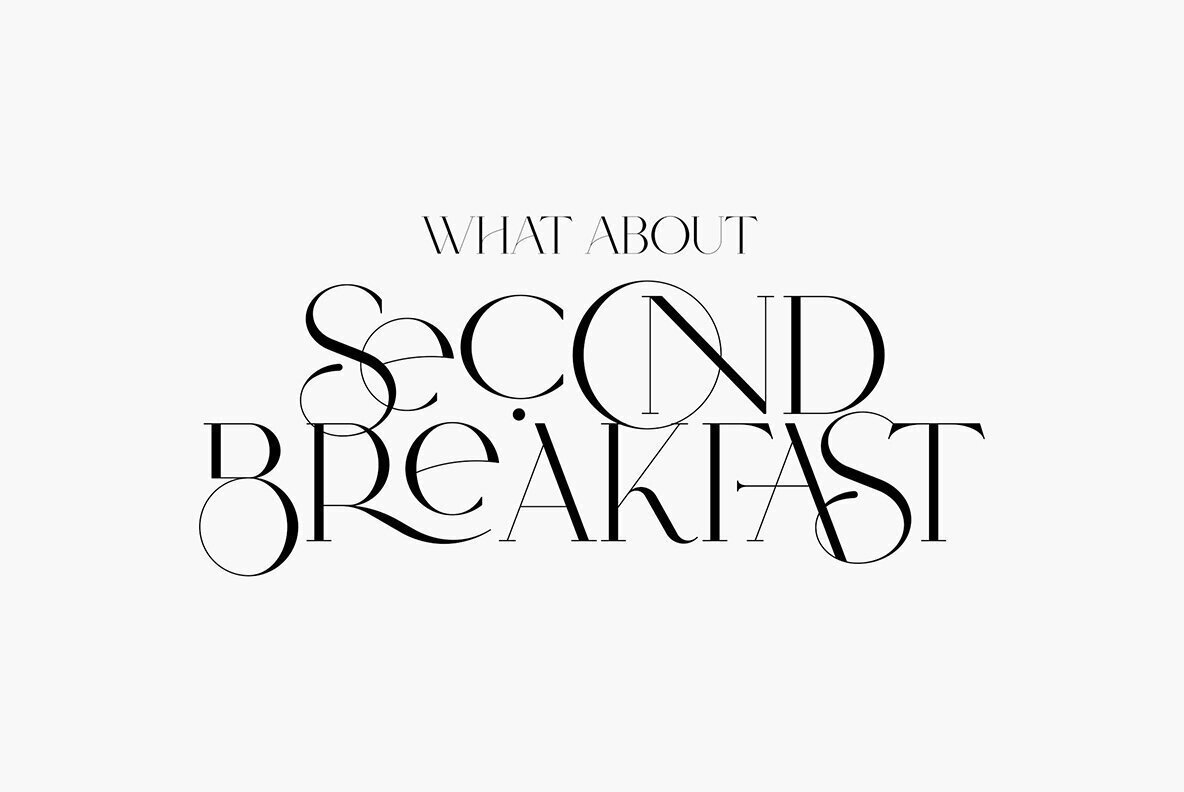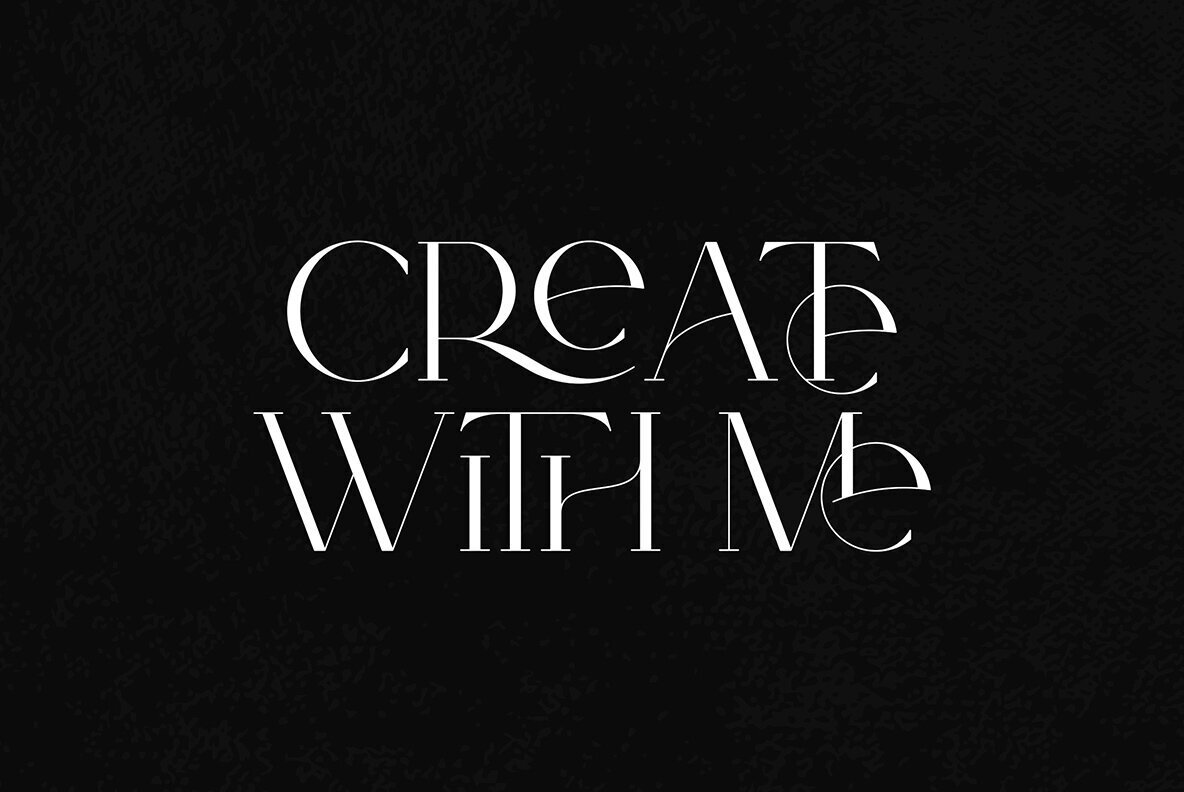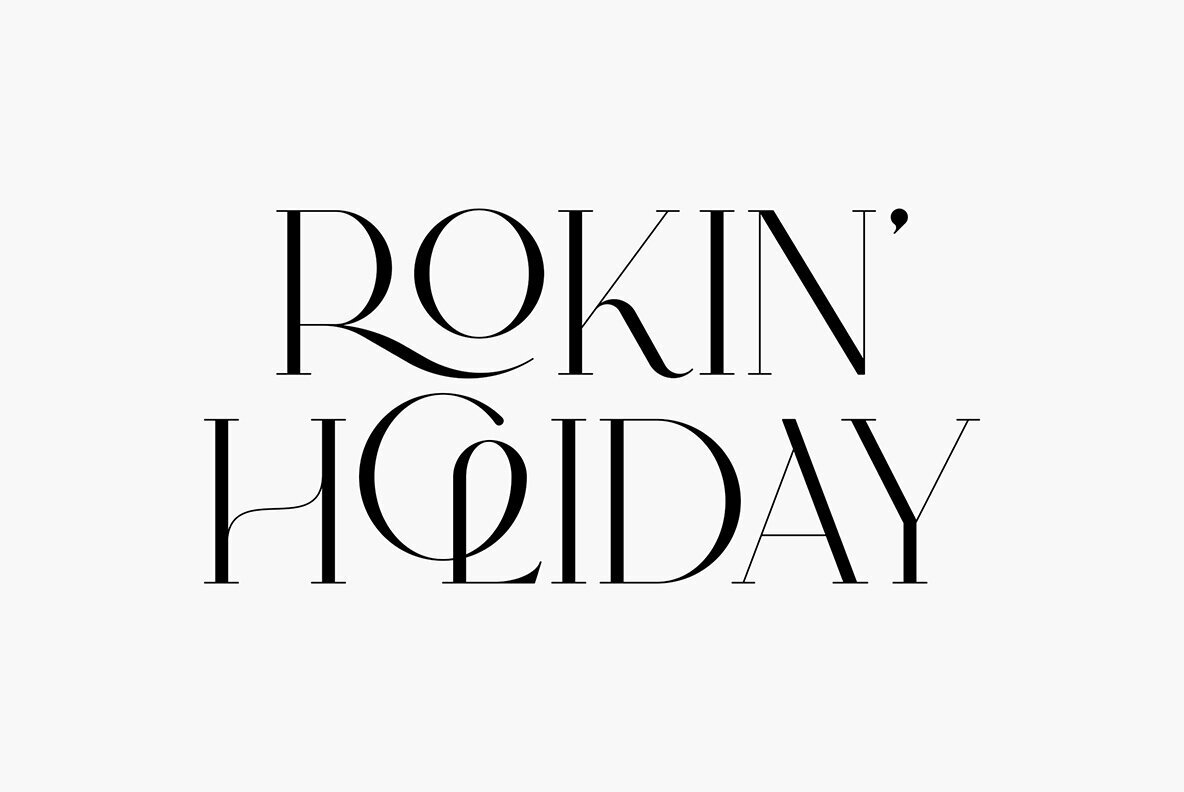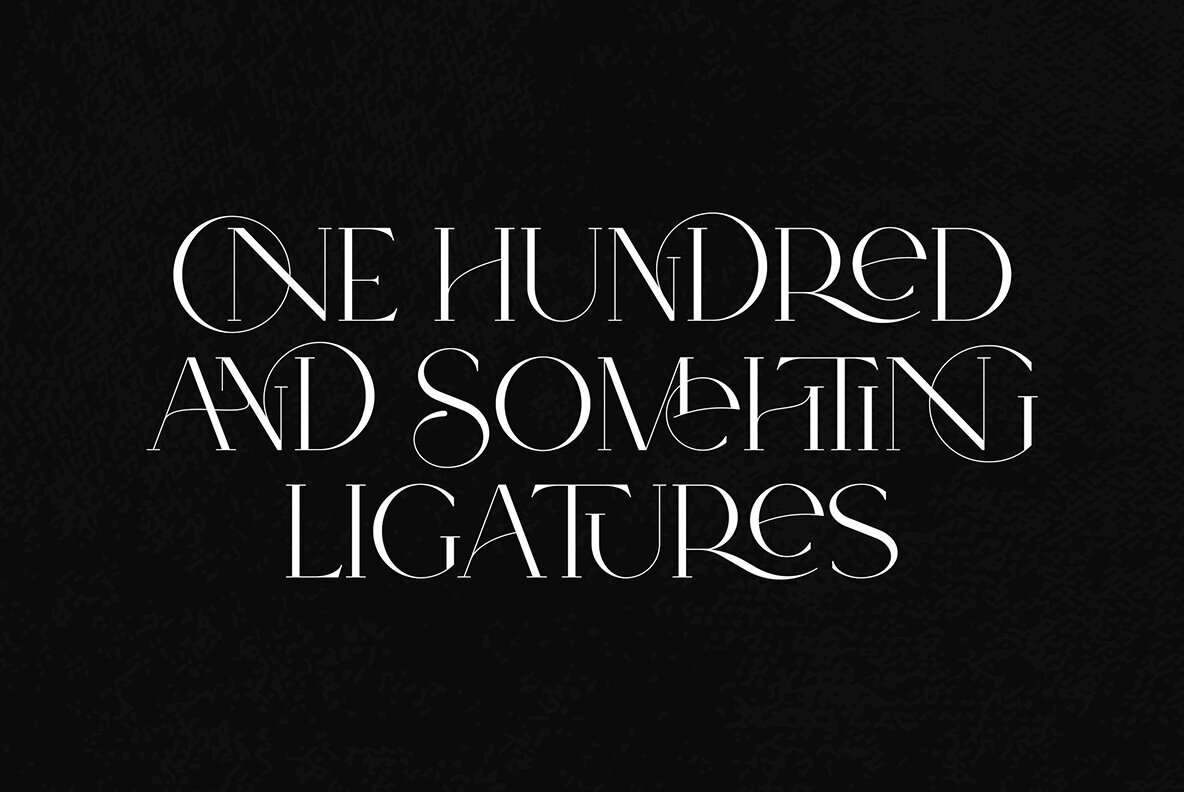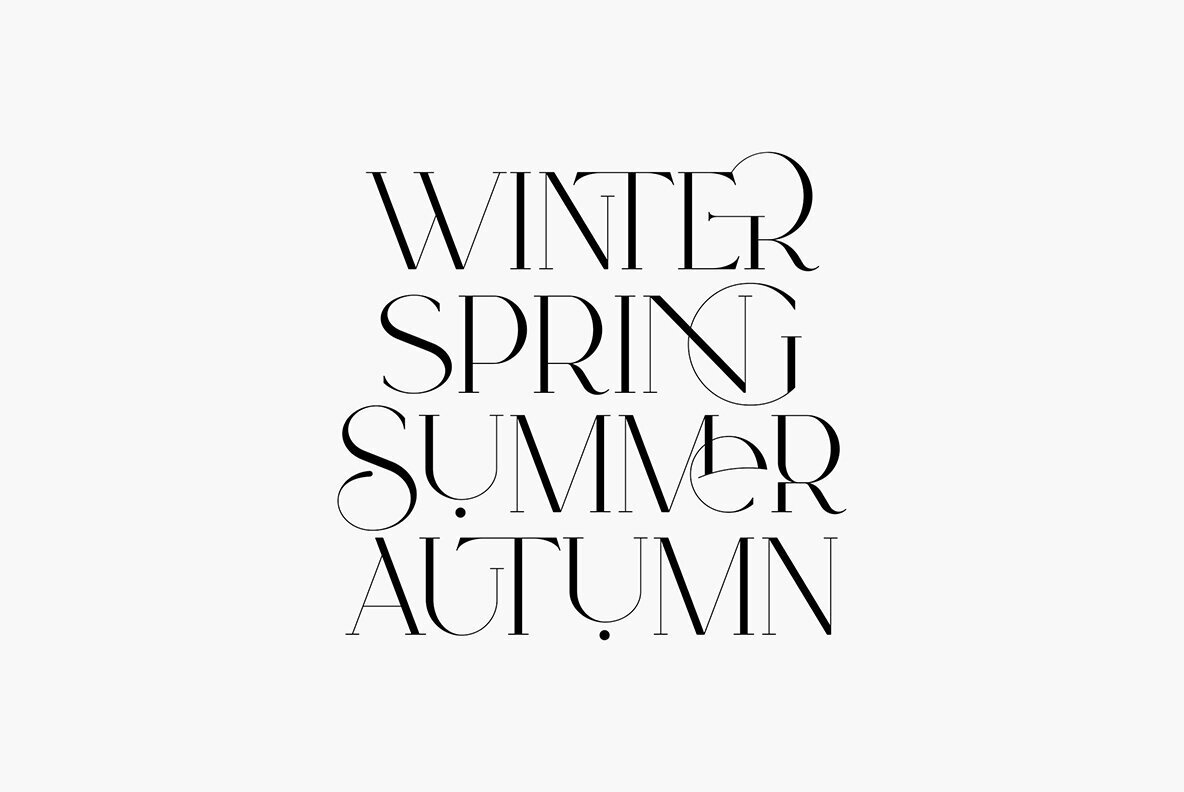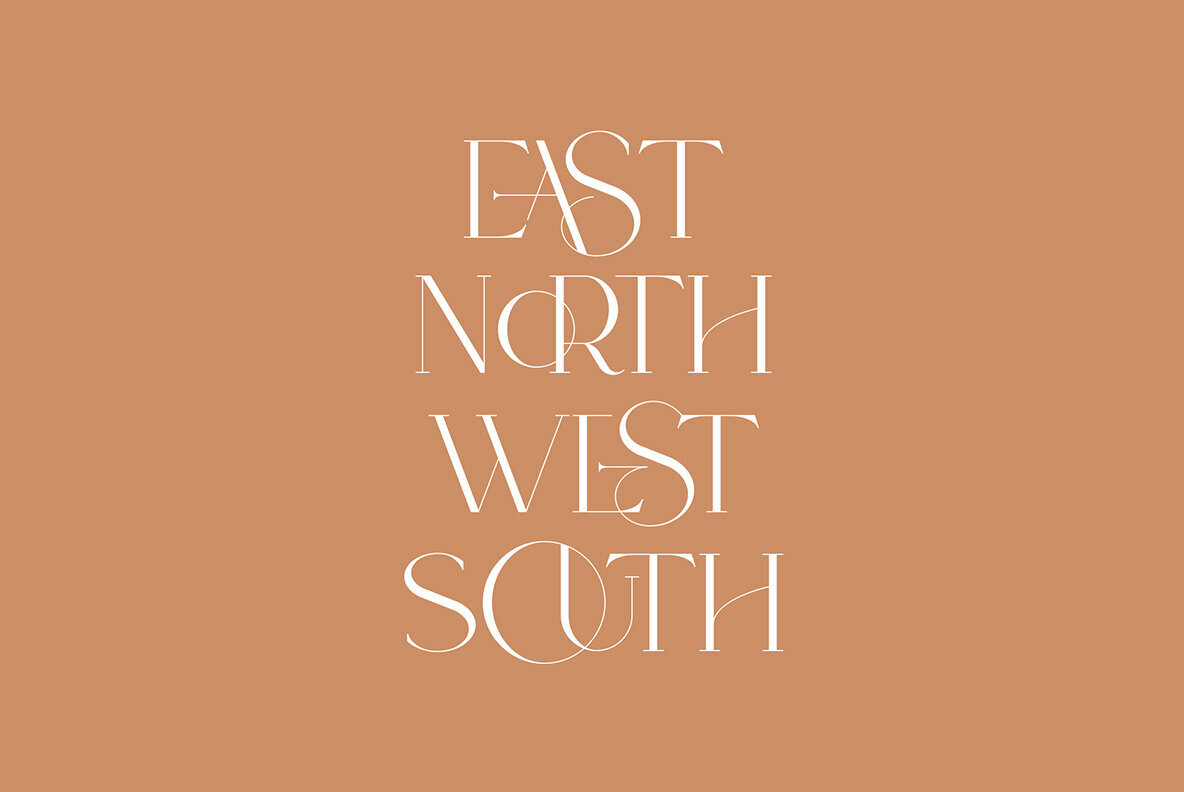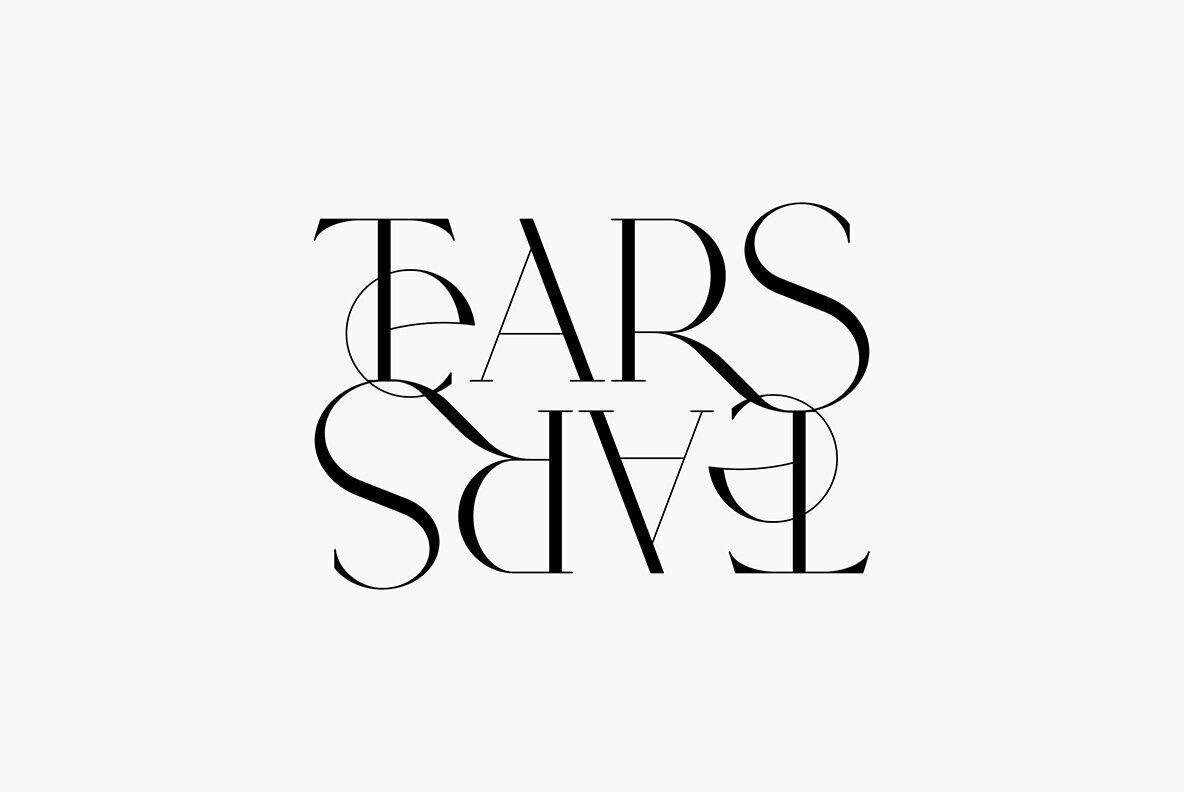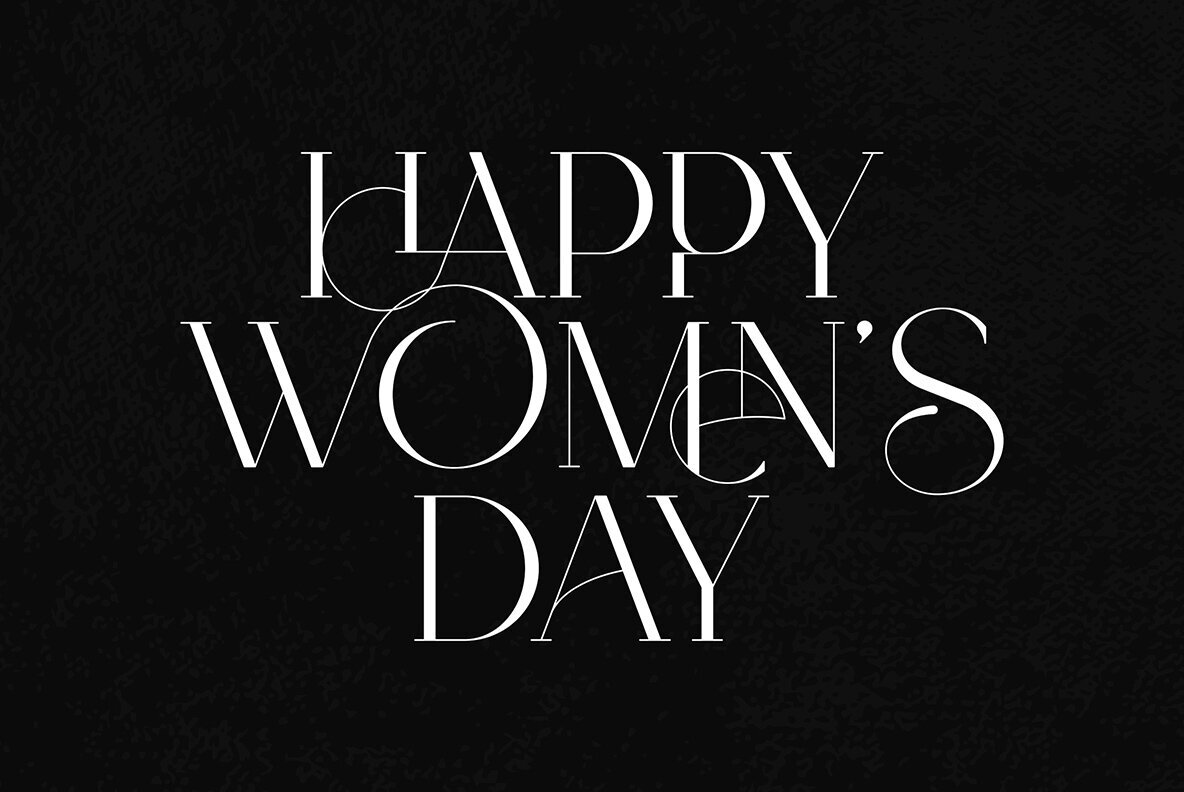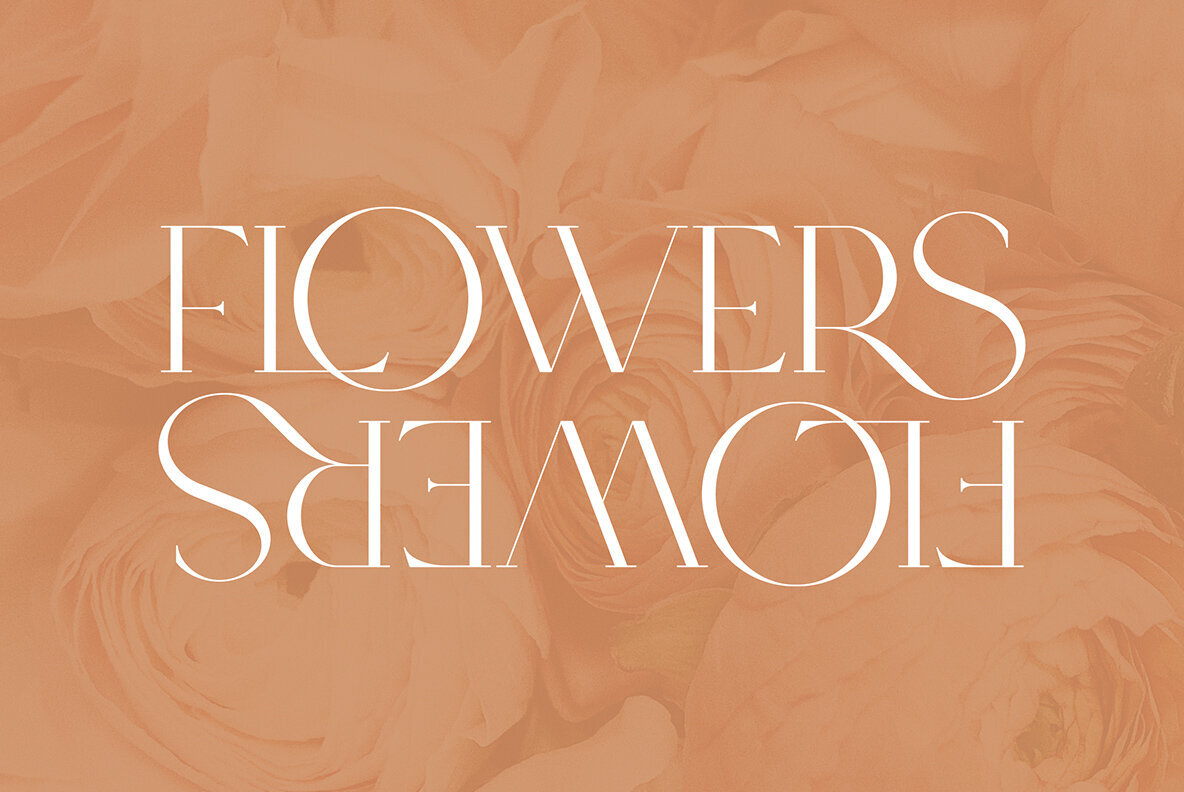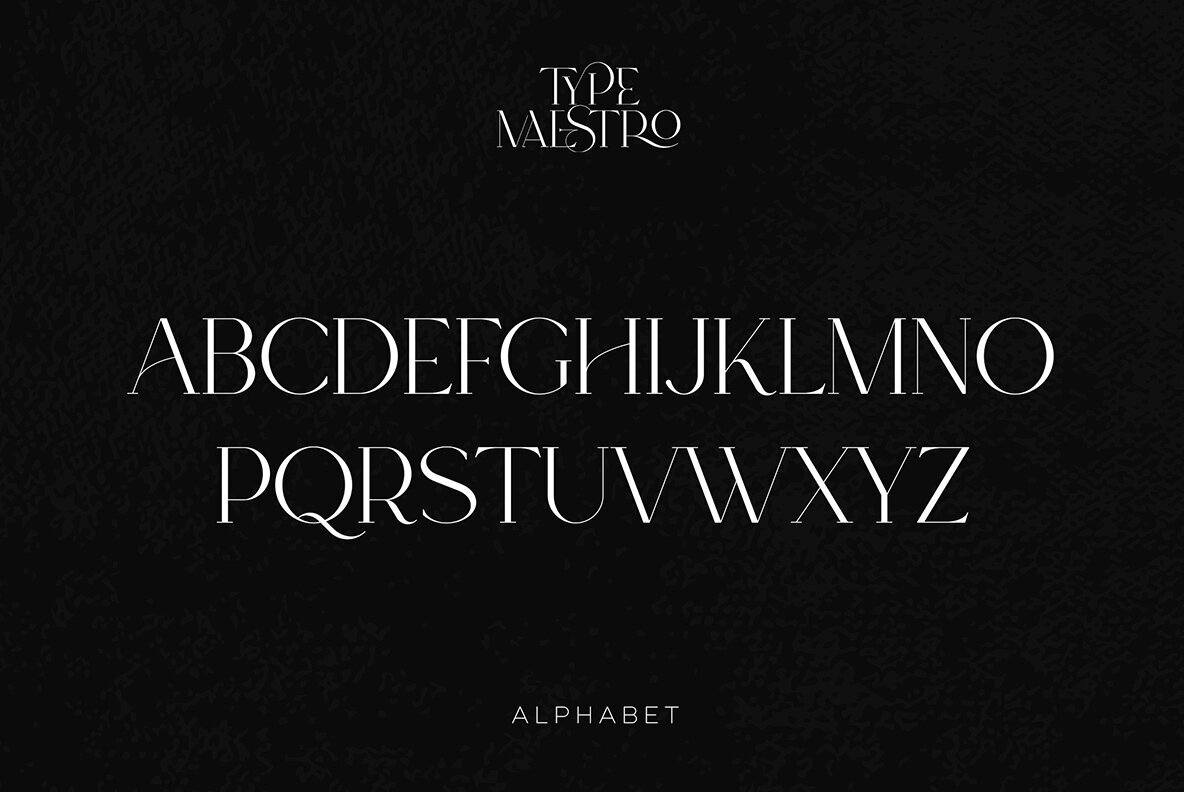
Type Maestro Font
Type Maestro
Type Maestro is an exquisite ligature serif font that exudes creativity and elegance. With over 100 meticulously crafted ligatures, this font is the perfect choice for designers looking to elevate their projects to new heights. One of the key features of Type Maestro is its extensive language support, boasting compatibility with 87 different languages. This makes it an incredibly versatile font that can be used for a wide range of projects, no matter where your audience is located. But what truly sets Type Maestro apart are its alternate glyphs. These unique characters add a touch of individuality and personality to your text, allowing you to create truly one-of-a-kind designs. Whether you're designing a logo, a website, or a social media post, Type Maestro has the flexibility and style to help you stand out from the crowd.